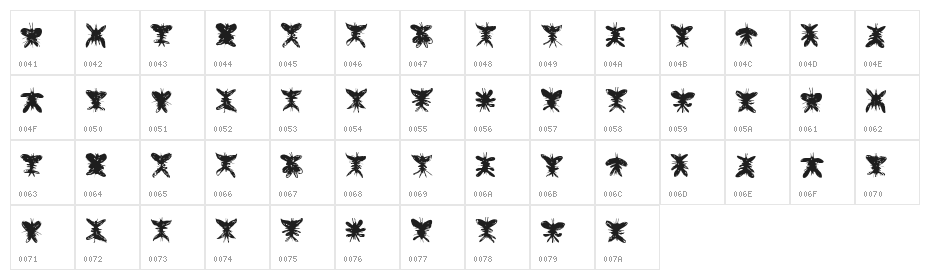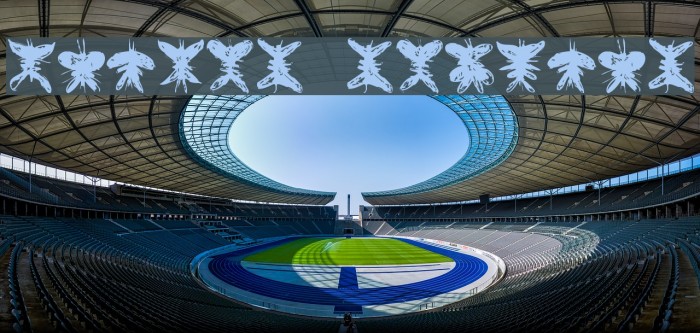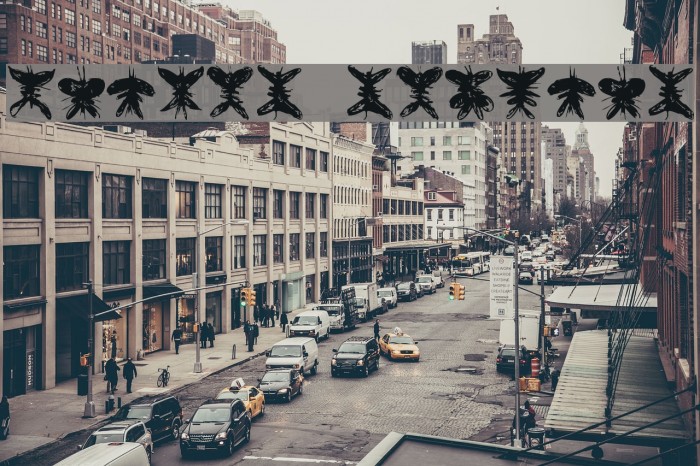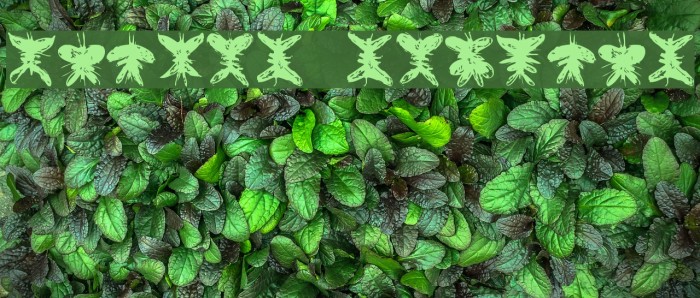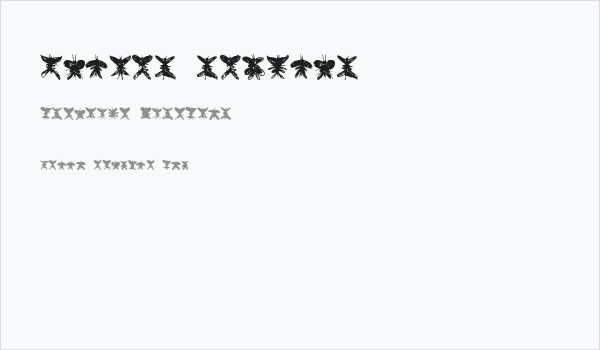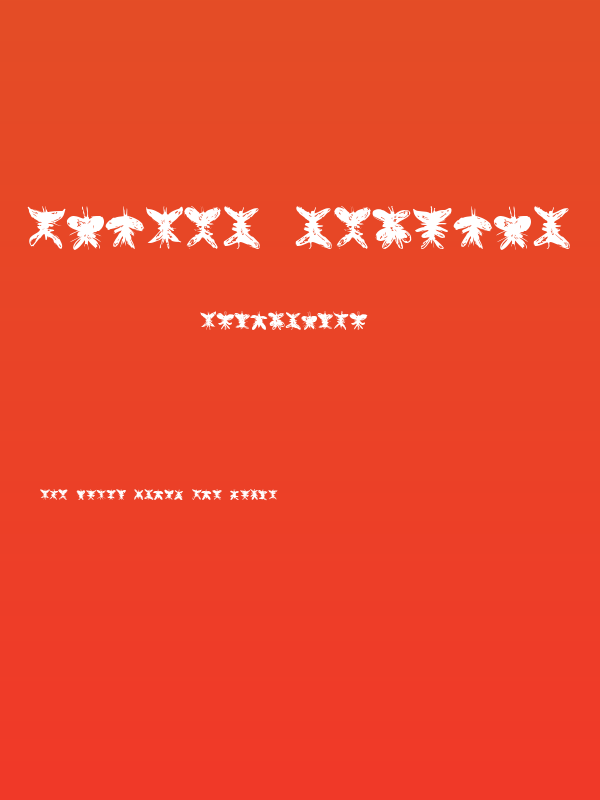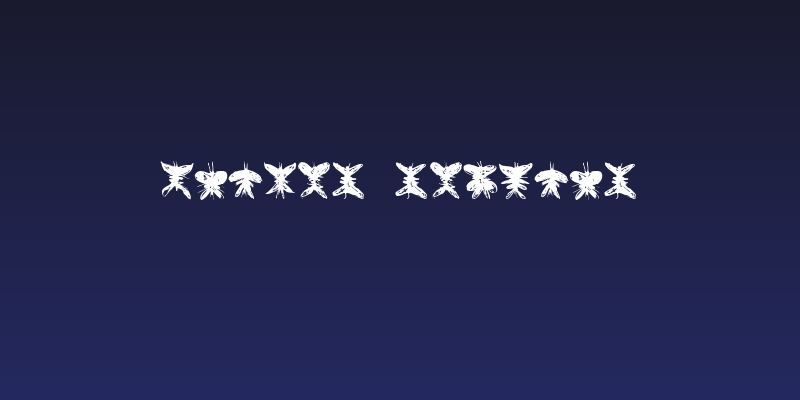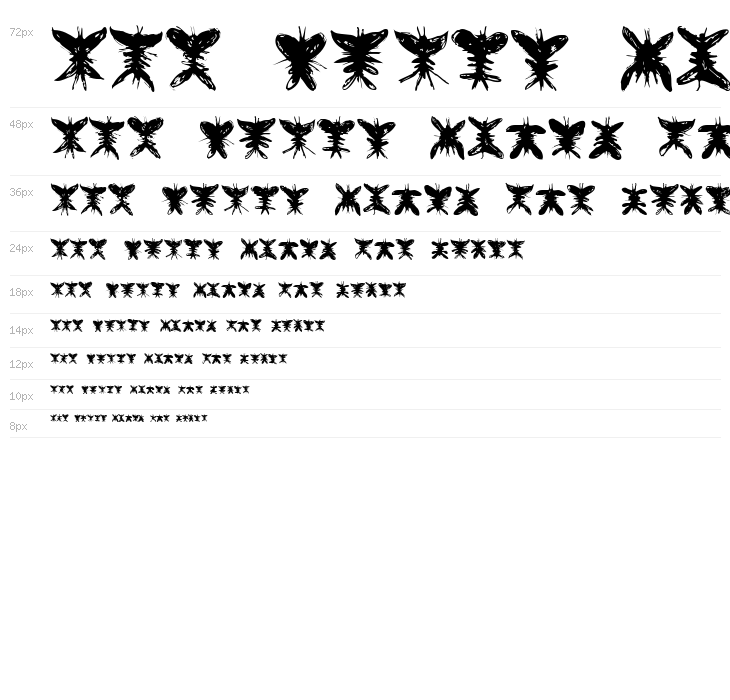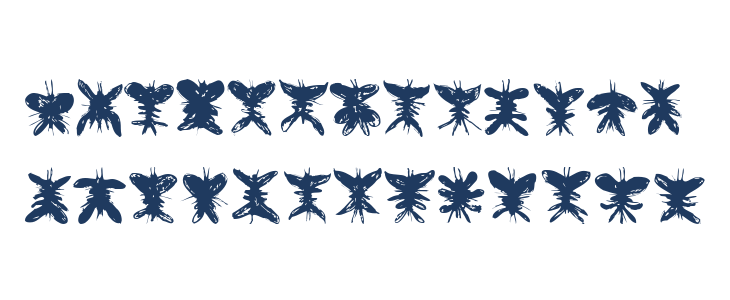
Falter Regular Font
Falter Regular Description
This font is highly decorative, featuring intricate butterfly-like shapes for each character. The design is bold and artistic, with each letter resembling a unique butterfly silhouette. The font is not suitable for body text due to its complex design but can be used effectively for decorative purposes. The characters are evenly spaced, maintaining a consistent visual flow. The style is whimsical and artistic, making it ideal for creative projects that require a touch of nature-inspired elegance.
| Use Case | Logos, Headlines, Artistic projects |
| Proposed Projects | This font is perfect for nature-themed invitations, artistic posters, and decorative headings. |